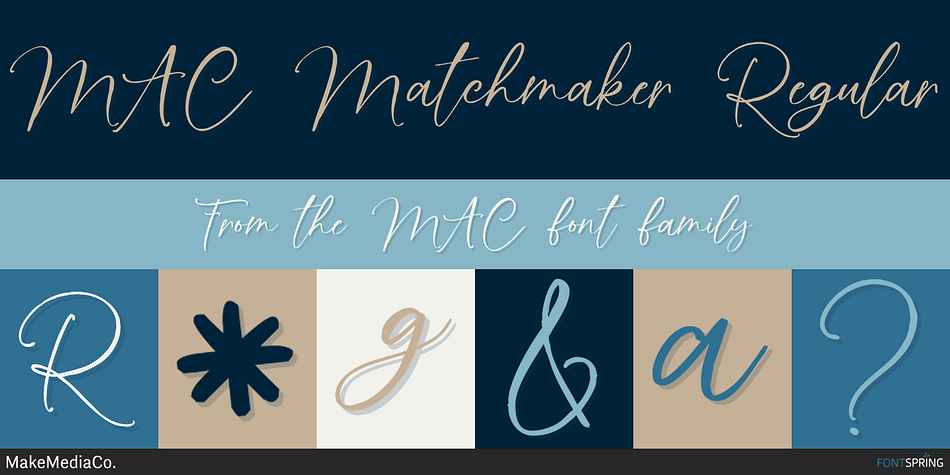
MAC Matchmaker Regular
MAC is a multiple classification font family. This typeface has sixteen styles and was published by MakeMediaCo.
Get ready for an avalanche of design goodness with the Modern Artisan Typeface Collection! This Ultra-handy, Ultra-Trendy bundle has everything you need to create hand lettered branding, packaging, apparel, totes, quotes and more! The “MAC” is PACKED with 16 NEW fonts, over 100 Illustrations, 27 Logo Templates, and TWO special bonuses for your creative pleasure.
INCLUDED FONTS:
• MAC_Burlesque - A Fun, all caps typeface with alternating upper and lowercase characters.
• MAC_Cabana Sunset - A Thin, hand lettered font, designed for legibility, it looks great on taglines & quotes.
• MAC_Cabana Sunset Bold - Just in case you needed a thicker version in your life.
• MAC_Chunky Monkey - A Super Thick, hand sketched display font, designed specifically for Headlines. But this chunky fella also looks amazing as subtext in logos.
• MAC_Chunky Monkey Solid - The Solid version looked so cool, I just had to include it.
• MAC_Confetti Bomb - The bundle is worth it, for this font alone! I honestly can’t get enough of Confetti Bomb! With it’s smooth stokes and unusual Caps, this typeface looks uniquely stunning in just about everything.
• MAC_Confetti Bomb Italic - It was just so pretty, I added an Italic Version. Because, you know, wedding season is coming. ;)
• MAC_Firecracker - This highly-legible sans serif looks amazing as a display font, but it’s equally stunning for taglines and small text.
• MAC_Ladyfingers - A quirky sans serif, perfect for logos. I especially love the Uppercase “Q.”
• MAC_Matchmaker - Matchmaker is the only “textured” font in the bundle. Boasting a slightly rustic appearance paired with elegant lines, Matchmaker looks especially lovely on personal branding and business cards.
• MAC_Oh Fabulous! - This is one of my favorites! It’s sweet, a bit condensed, and full of charm. Oh Fabulous! contains ligatures, and a few hidden glyphs. ;)
• MAC_Pencil Pusher - A simple handwriting font for legible quotes, taglines & logos.
• MAC_Punchbowl Bandits - A Font bundle wouldn’t be complete without that quirky serif, right? Well, that’s Punchbowl Bandits. And this cutie-pie comes with: “La, Le, Li, Lo, Lu & Ls” automatic ligatures to make your type standout!
• MAC_Sugarshack - This super sweet sans serif looks dreamy on pillows, notebooks, calendars & planners.
• MAC_Supercute Crush - I’ve been wanting a thicker, condensed script for quotes, so I whipped up this baby. This smooth, whimsical font pairs so well with Pencil Pusher & Cabana Sunset. (The Uppercase Characters looks amazing on their own).
• MAC_Swanky - Swanky is just like it’s name; Relaxed and saucy. I especially like the numerals on this one (hint, hint). ;) Oh, and this one comes with decorative beginning and end characters.
• All Fonts are currently English Only, with standard punctuation and numerals.
• Most of the fonts have automatic ligatures or hidden alternate characters, so be sure to check your Glyphs Panels.